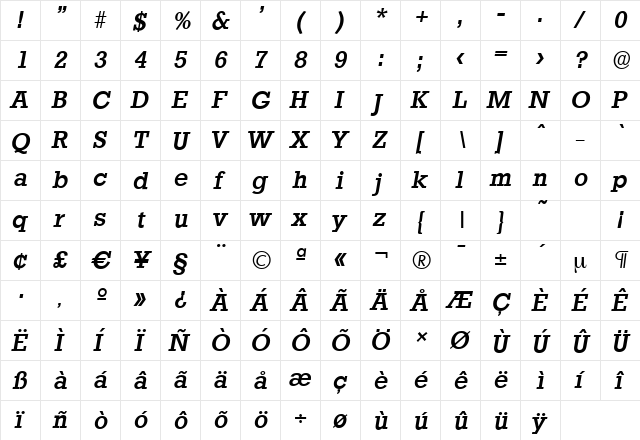
StaffordSerial-Medium Italic
Design Context for StaffordSerial-Medium Typeface
StaffordSerial-Medium is a composed and adaptable typeface that performs quietly and consistently across a wide range of design contexts. The slanted form adds forward momentum and visual energy.
Pro Tip: Try StaffordSerial-Medium for annotation and caption copy alongside an upright companion — the contrast in angle creates a dynamic but ordered typographic system.